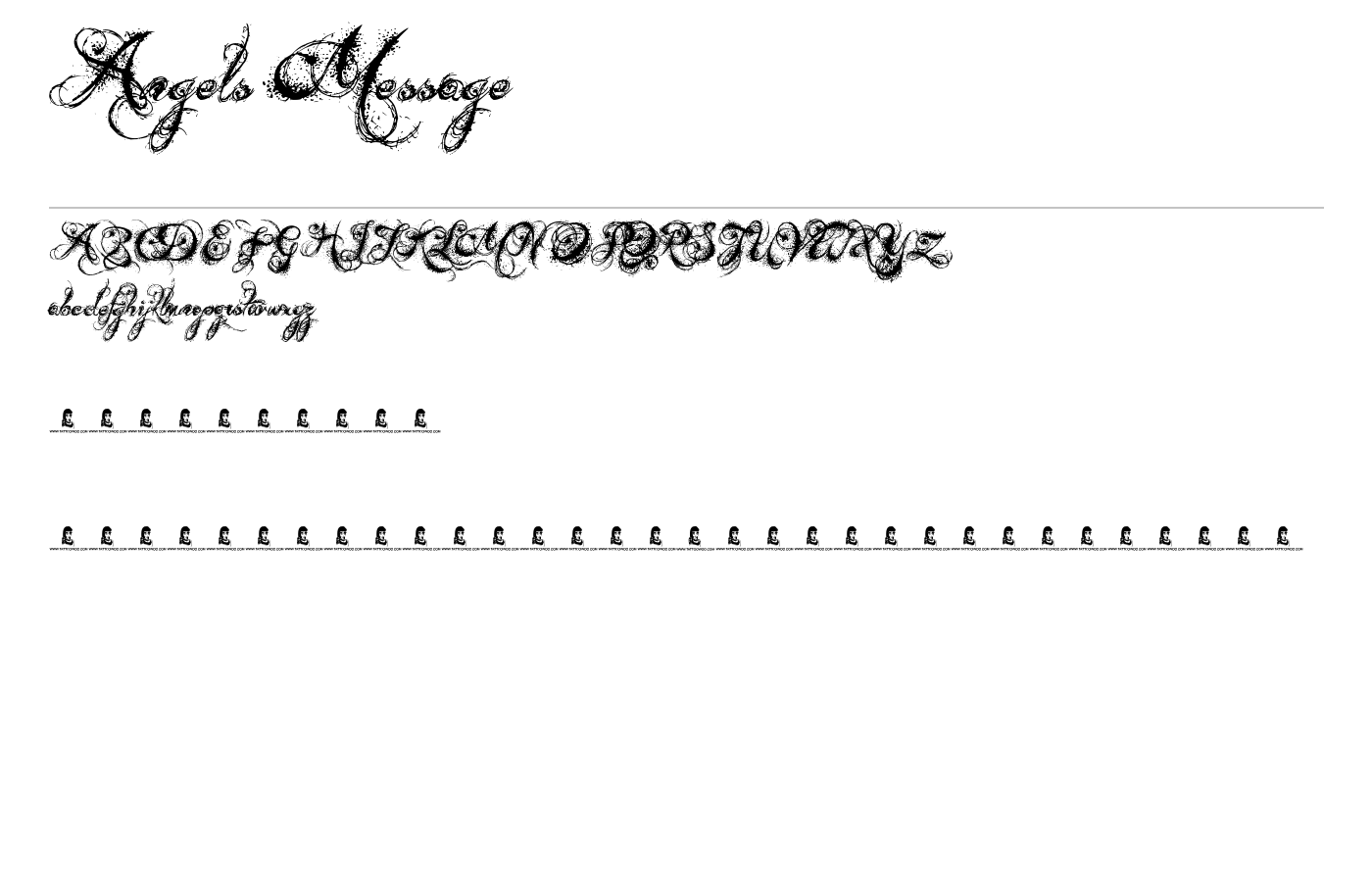
Angels Message is an intricate script font with highly decorative, almost chaotic flourishes that give it a mysterious and artistic feel. Its delicate, swirling lines create a sense of elegance mixed with a slightly dark, gothic vibe, making it ideal for unique branding, album covers, or any design needing a dramatic, expressive touch. This font works best in larger sizes, where its ornate details can be appreciated, rather than for body text or small print.
Angels Message Font
About Angels Message Font